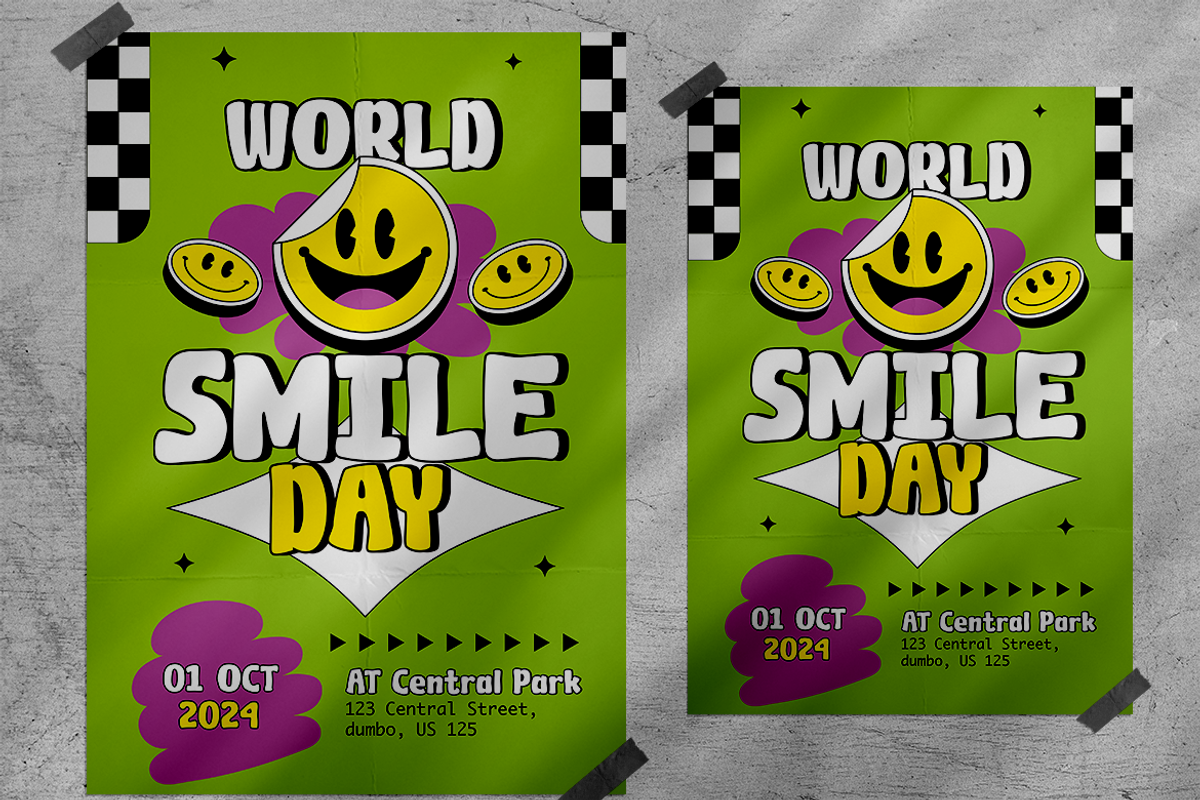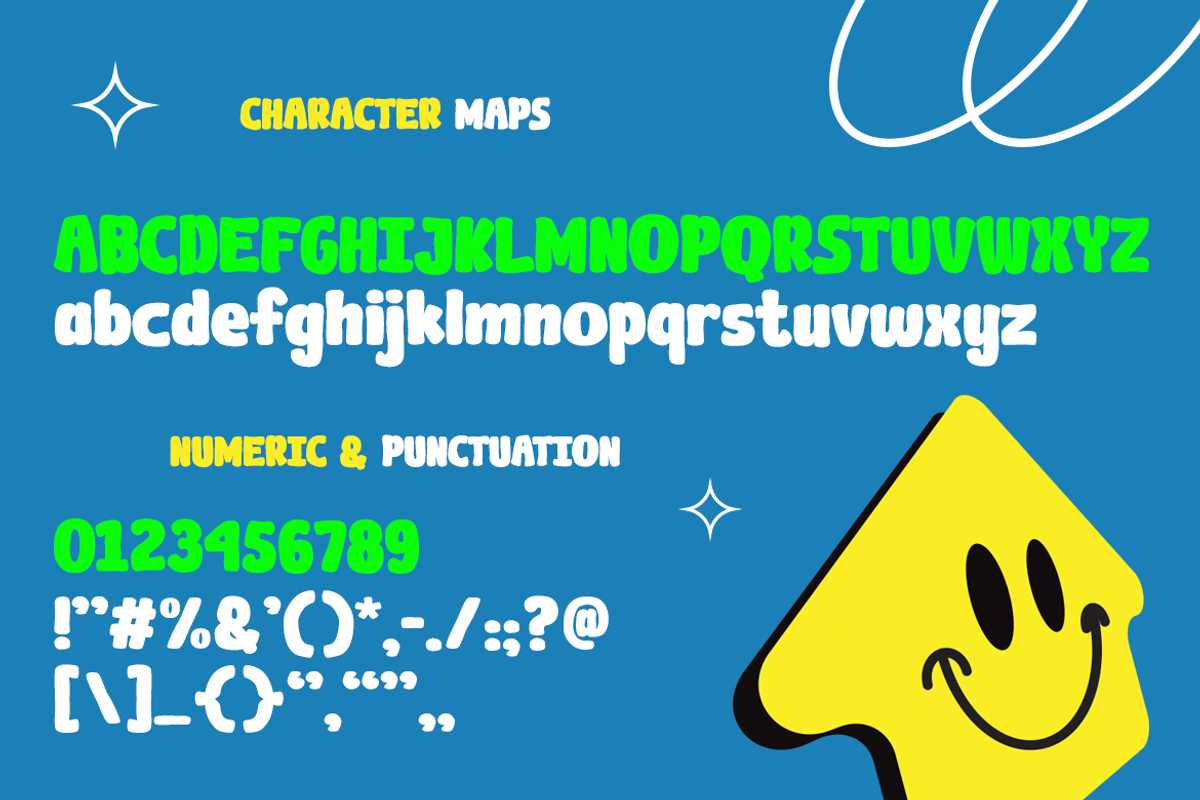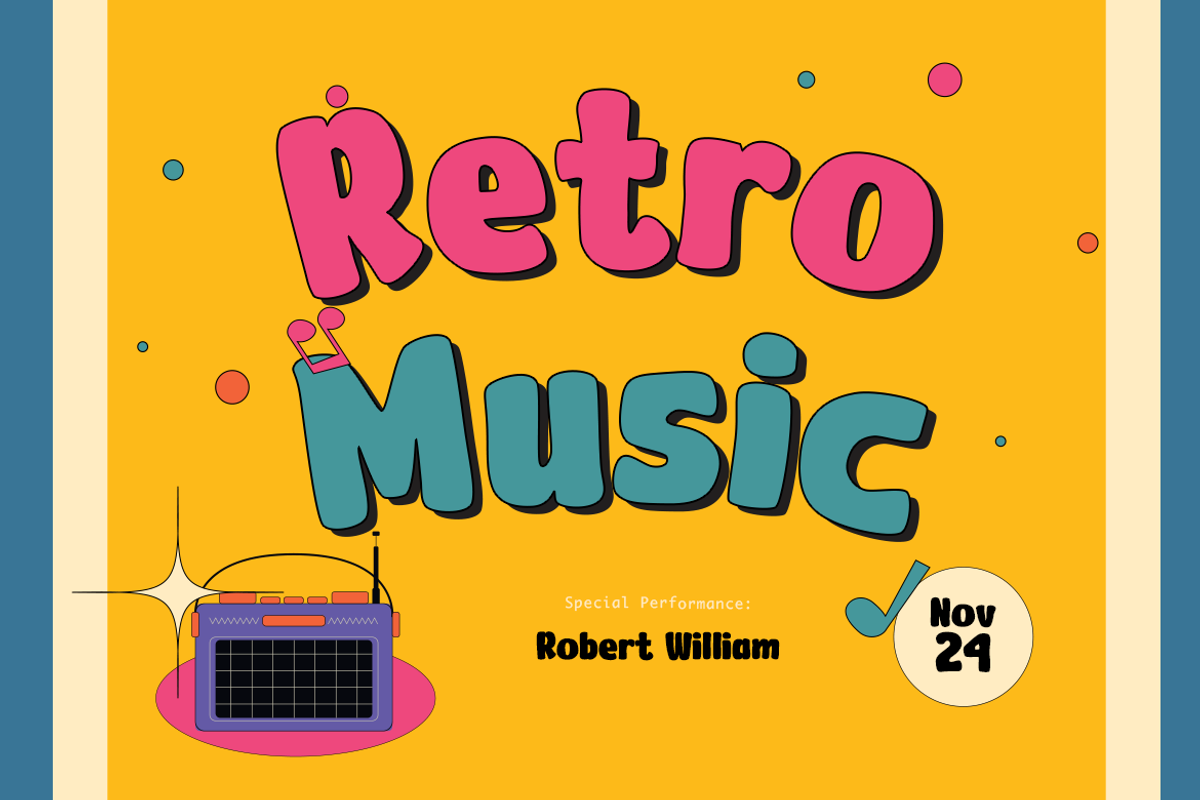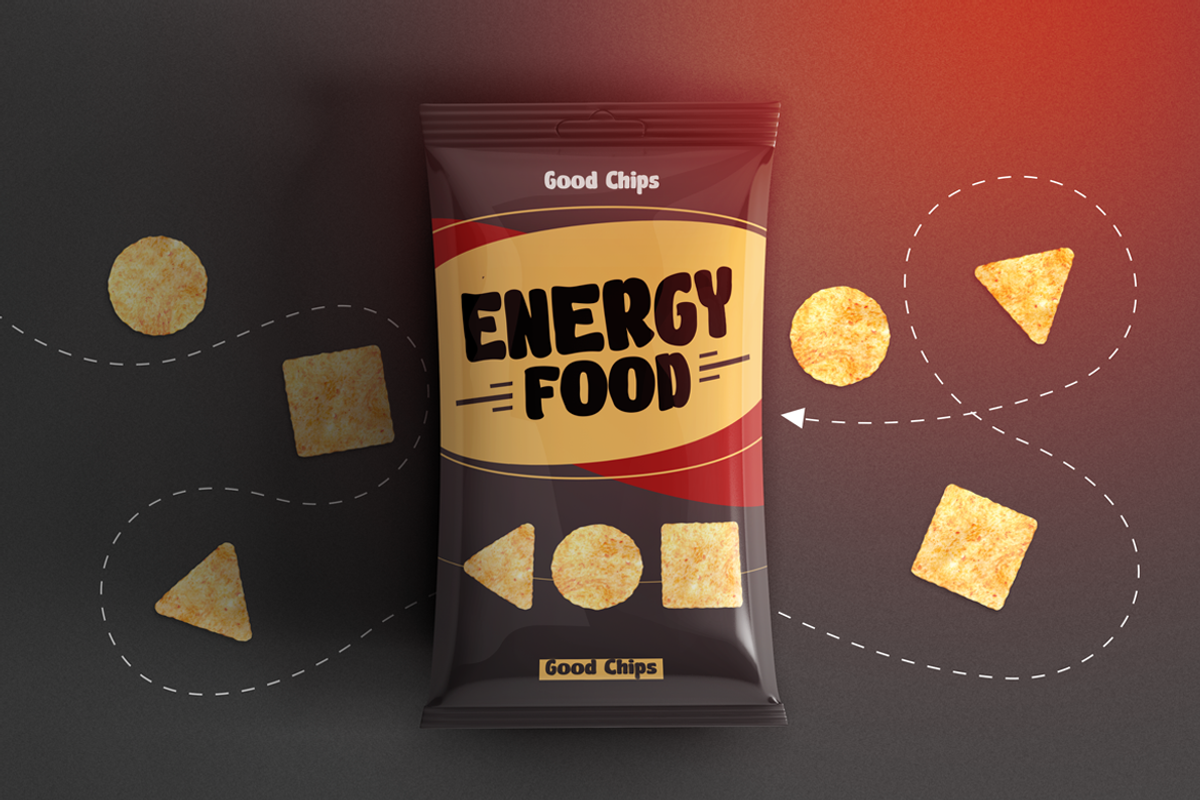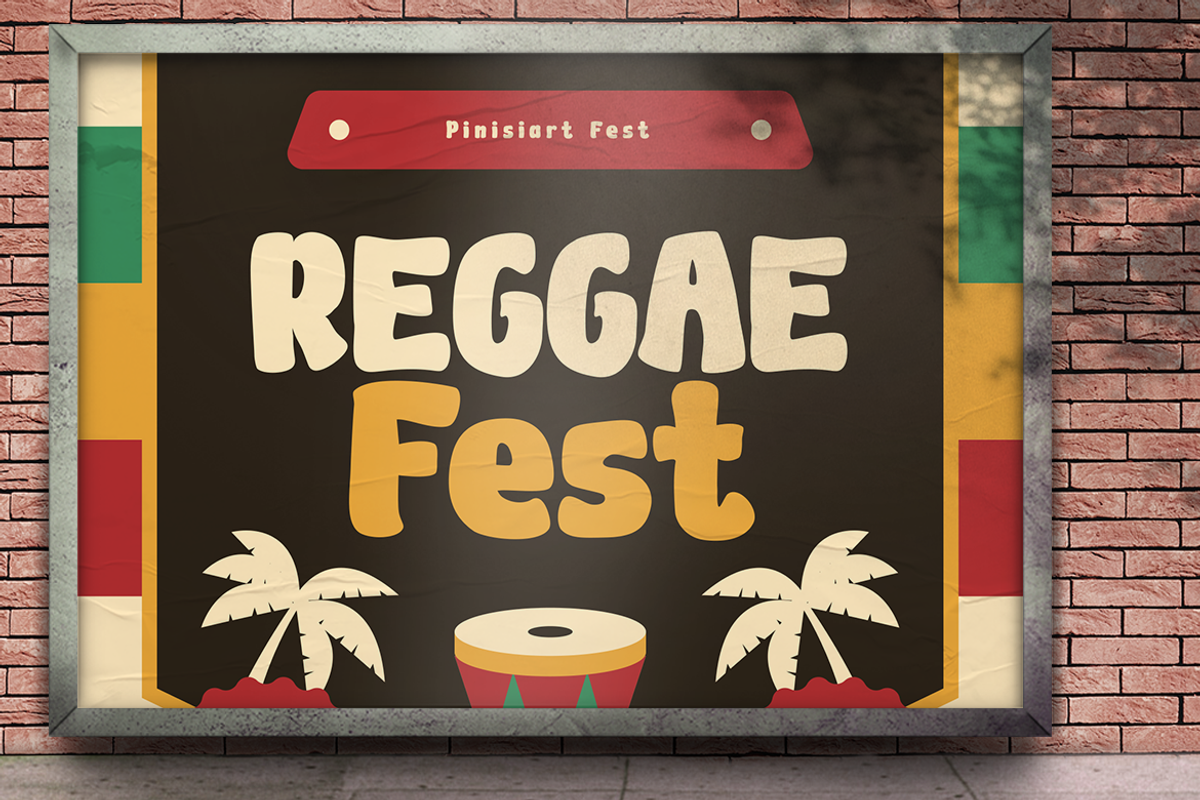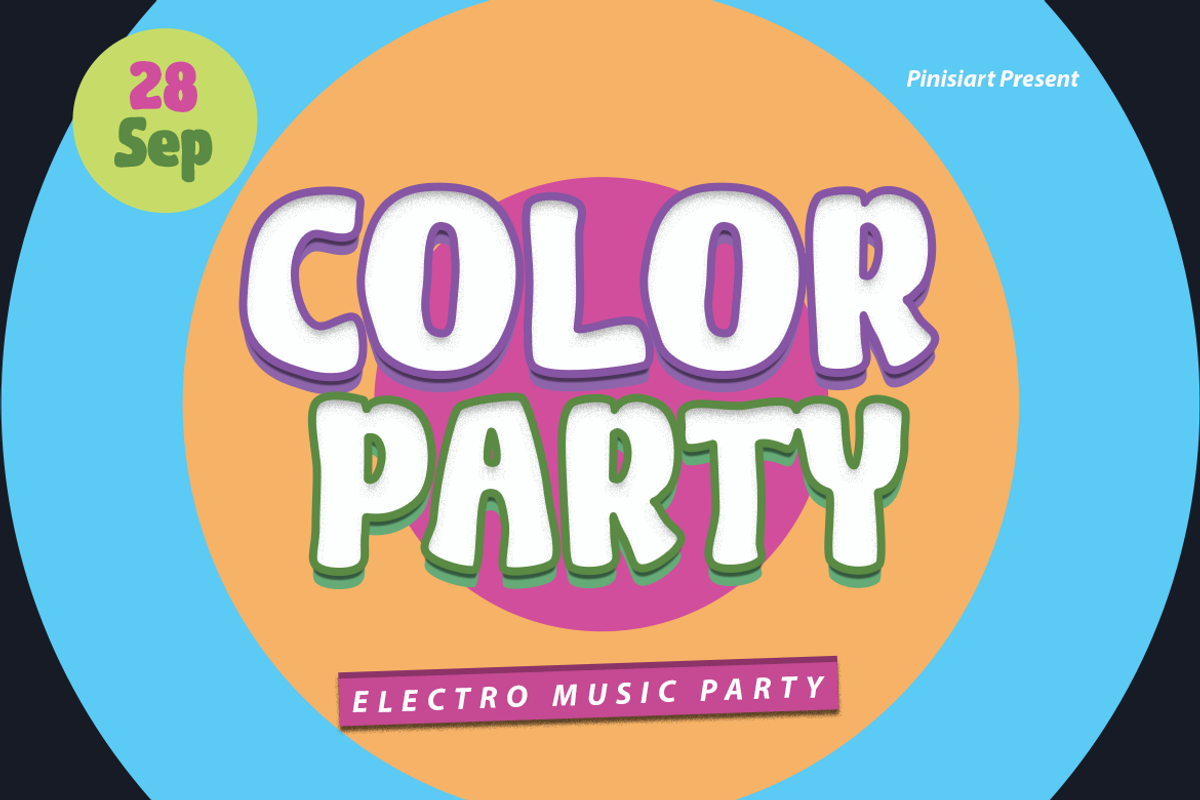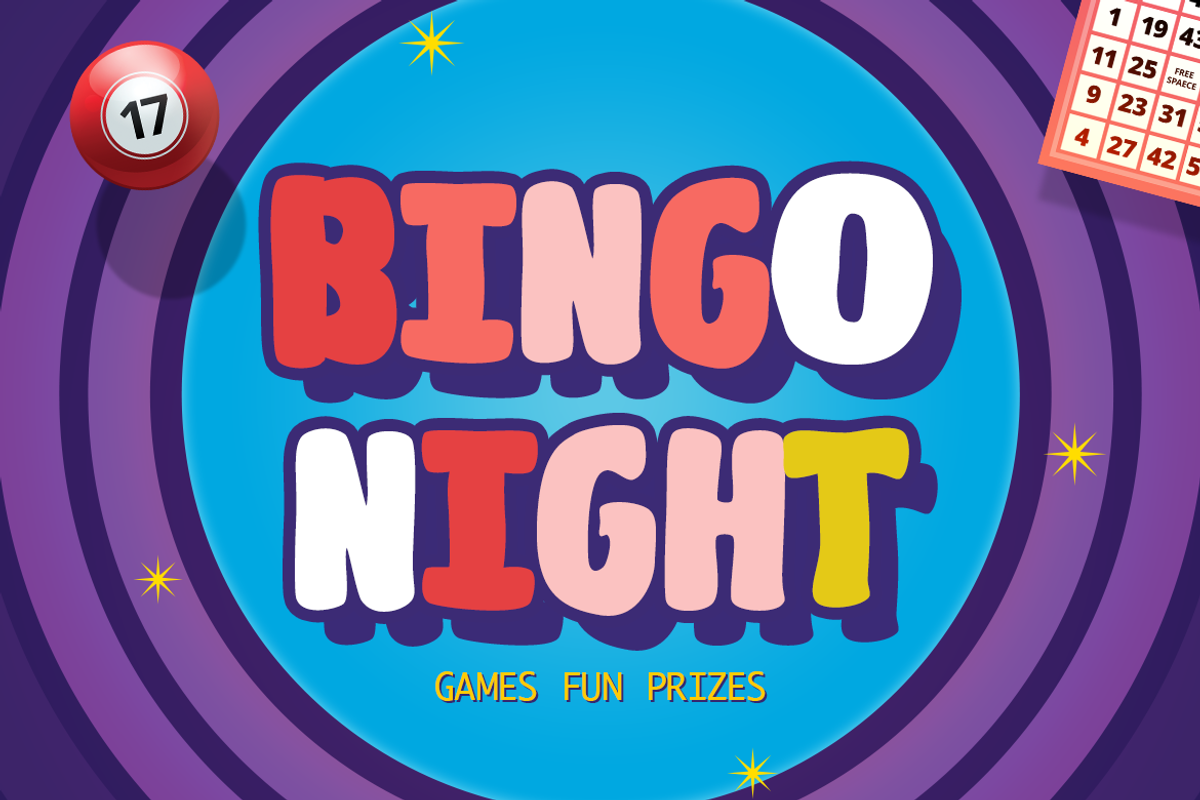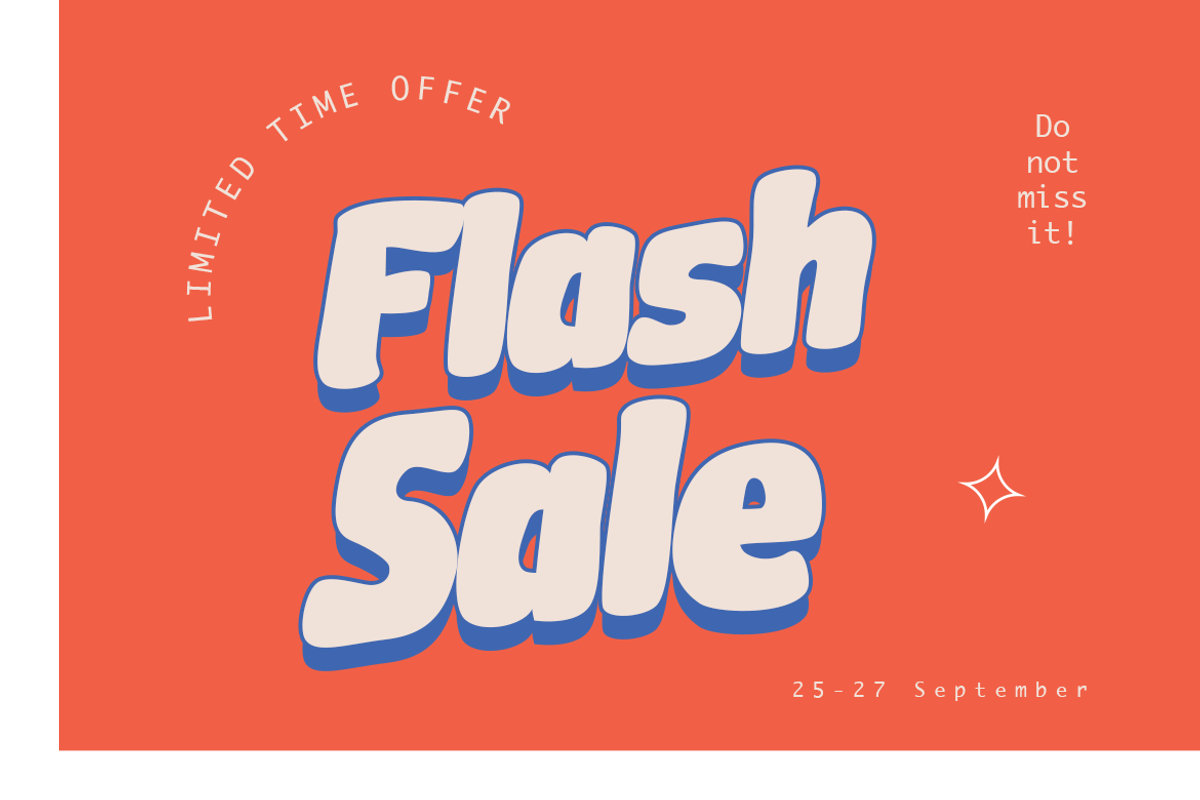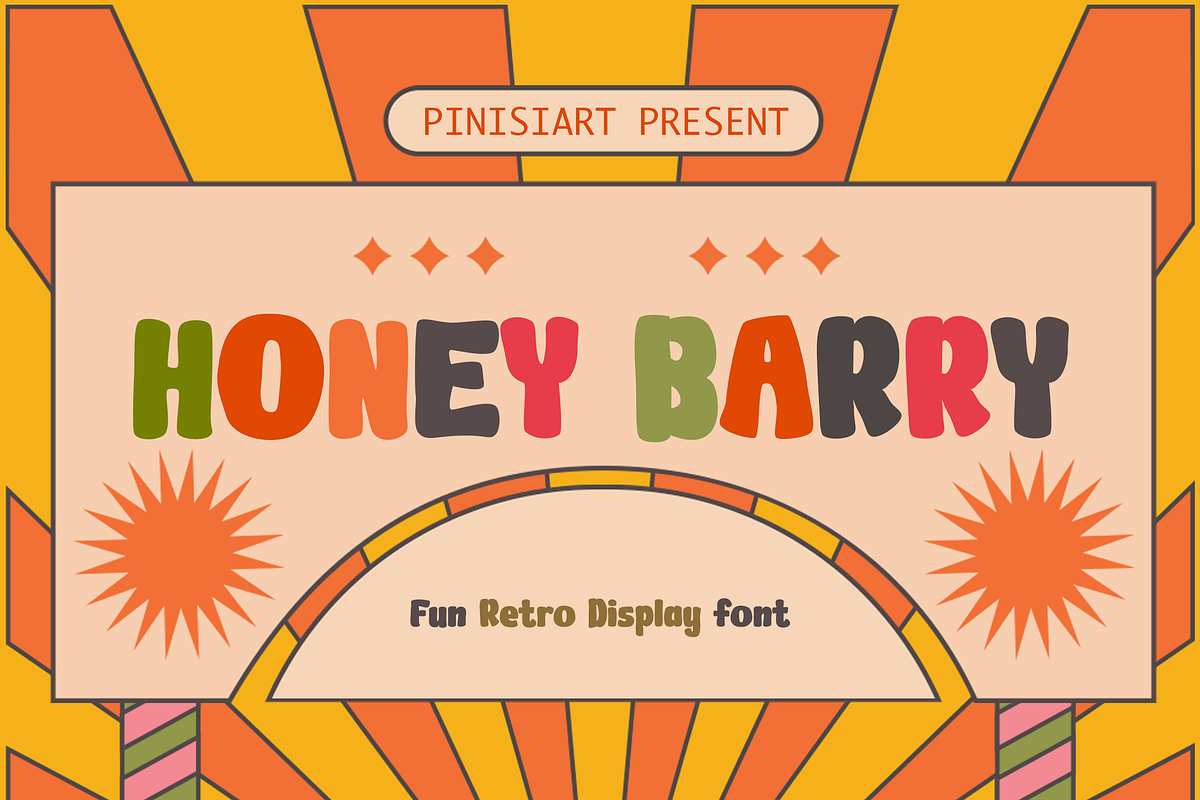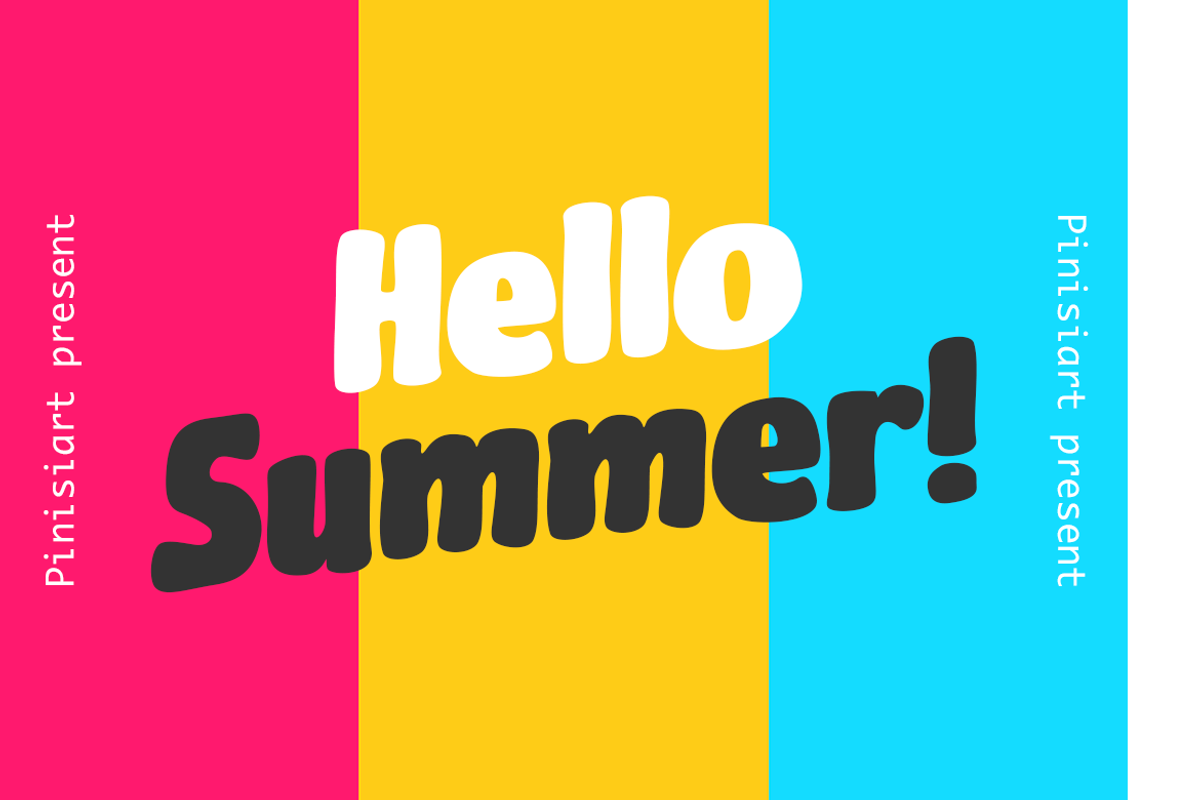
Honey Barry - Fun Retro
It’s classic, vintage and also feels like it was standing through times with the irregular lines. Compared to the boring straight computerized look of other serif fonts, Honey Barry is proofing that it is worthed to be word as a badge.
Suit perfectly for retro segmented magazine, poster, movie title, music poster, youtube covers, youtube thumbnails, social media page covers and so on…